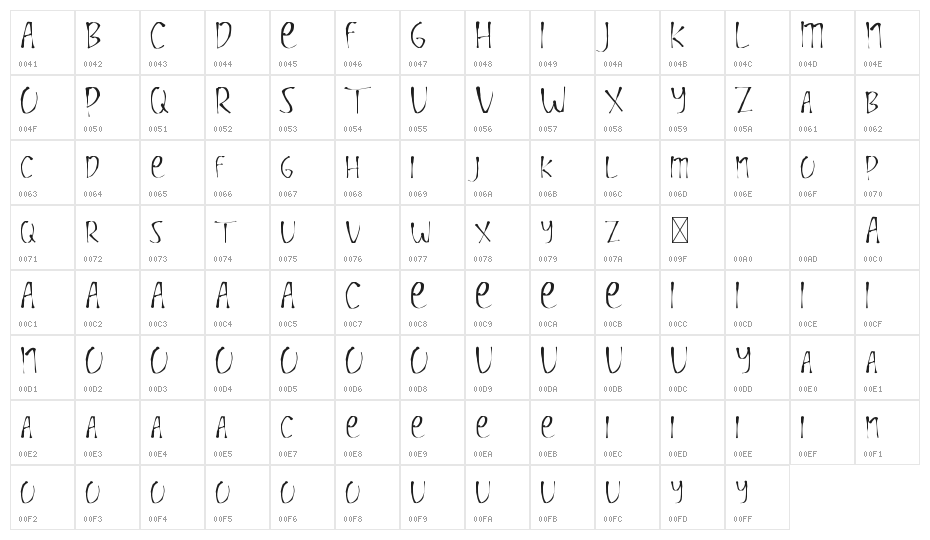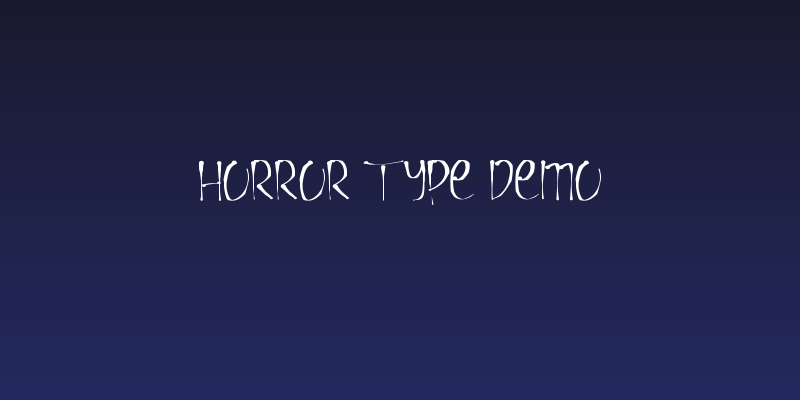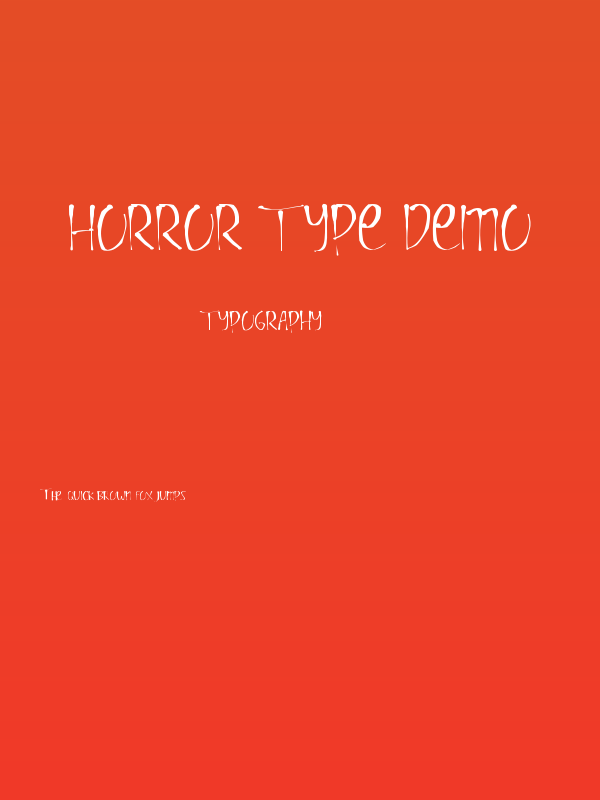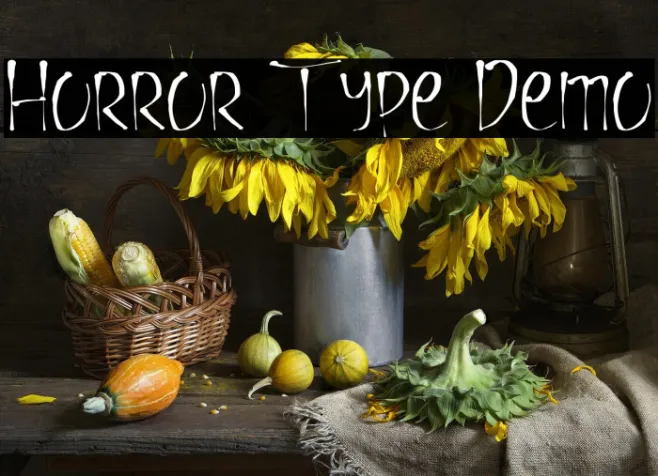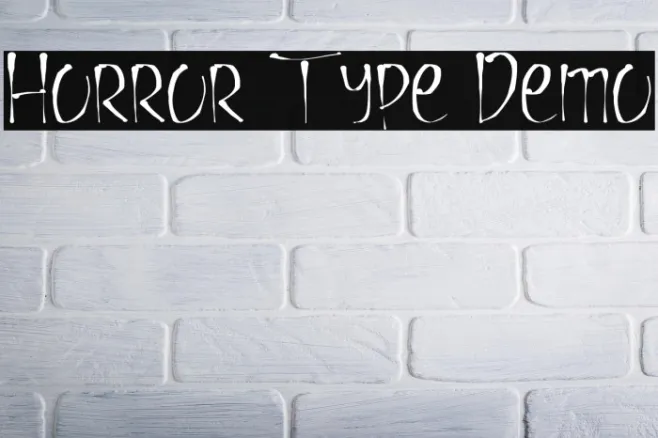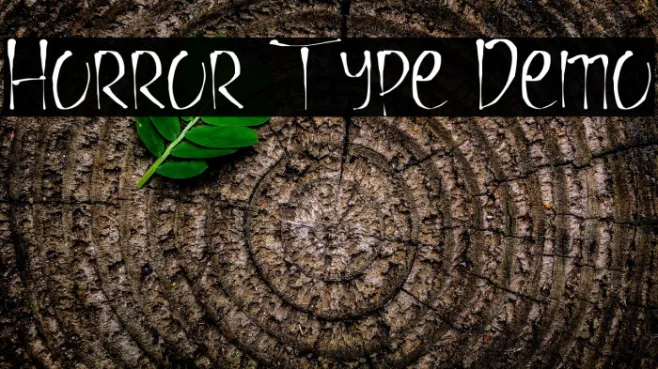
Horror Type Demo Font
Horror Type Demo Description
This font exudes a chilling and eerie atmosphere, perfect for horror-themed designs. The letters are elongated and irregular, with sharp, pointed edges that resemble dripping ink or blood, enhancing its spooky aesthetic. The uneven strokes and varying thicknesses contribute to its unsettling appearance, making it ideal for creating a sense of suspense and fear. The uppercase and lowercase letters maintain a consistent style, ensuring readability while still delivering a haunting vibe. This font is particularly suitable for Halloween projects, horror movie posters, or any design that requires a touch of the macabre.
| Proposed Projects | Ideal for Halloween invitations, horror movie posters, haunted house flyers, and eerie book covers. |